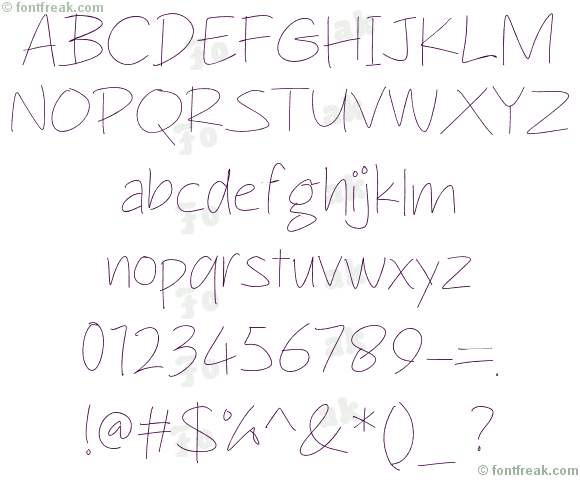
Penchill Gage
About Penchill Gage
Penchill Gage is a charming handwritten font crafted by MJType, categorized under script typefaces. This font features a delightful blend of playful curves and elegant strokes, giving it a whimsical yet refined appearance. The stroke weight is consistent, with slight variations that add a natural flow to the letters, making it feel as though each character has been penned with care. The spacing is well-balanced, ensuring readability while maintaining the organic feel typical of handwritten styles. Decorative elements are subtly integrated, enhancing the font's personality without overwhelming the text.
This versatile font is ideal for a variety of creative projects. It's particularly well-suited for wedding invitations, where its romantic and personal touch can elevate the overall design. Penchill Gage also shines in greeting cards, adding a heartfelt sentiment to special occasions. For small businesses, this font can enhance the branding of coffee shops or boutiques, creating a friendly and approachable atmosphere. Additionally, it works wonderfully for social media graphics, providing a unique flair to content aimed at engaging audiences.
Targeting graphic designers, small business owners, and content creators, Penchill Gage offers a refreshing alternative to more conventional fonts. Its unique characteristics allow for a personal touch in various applications, making it a go-to choice for those looking to stand out.